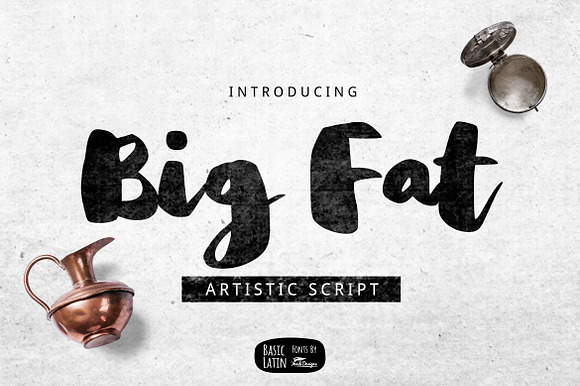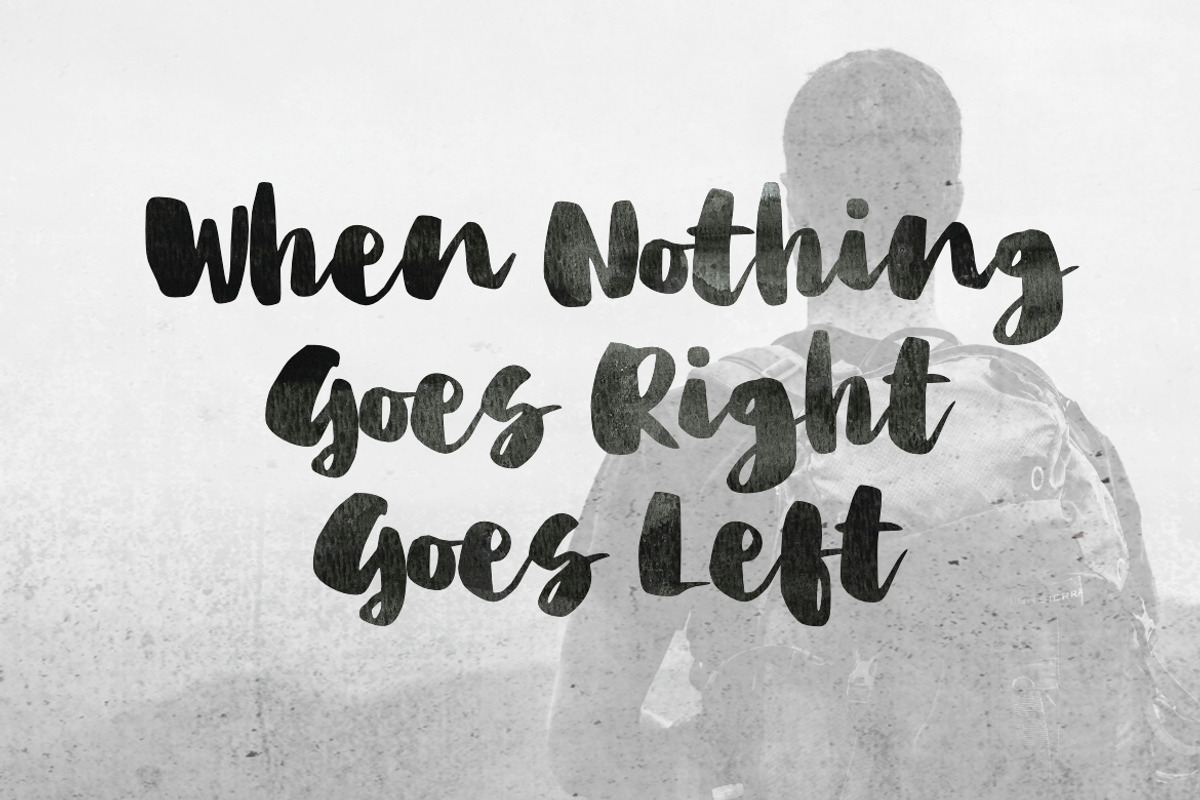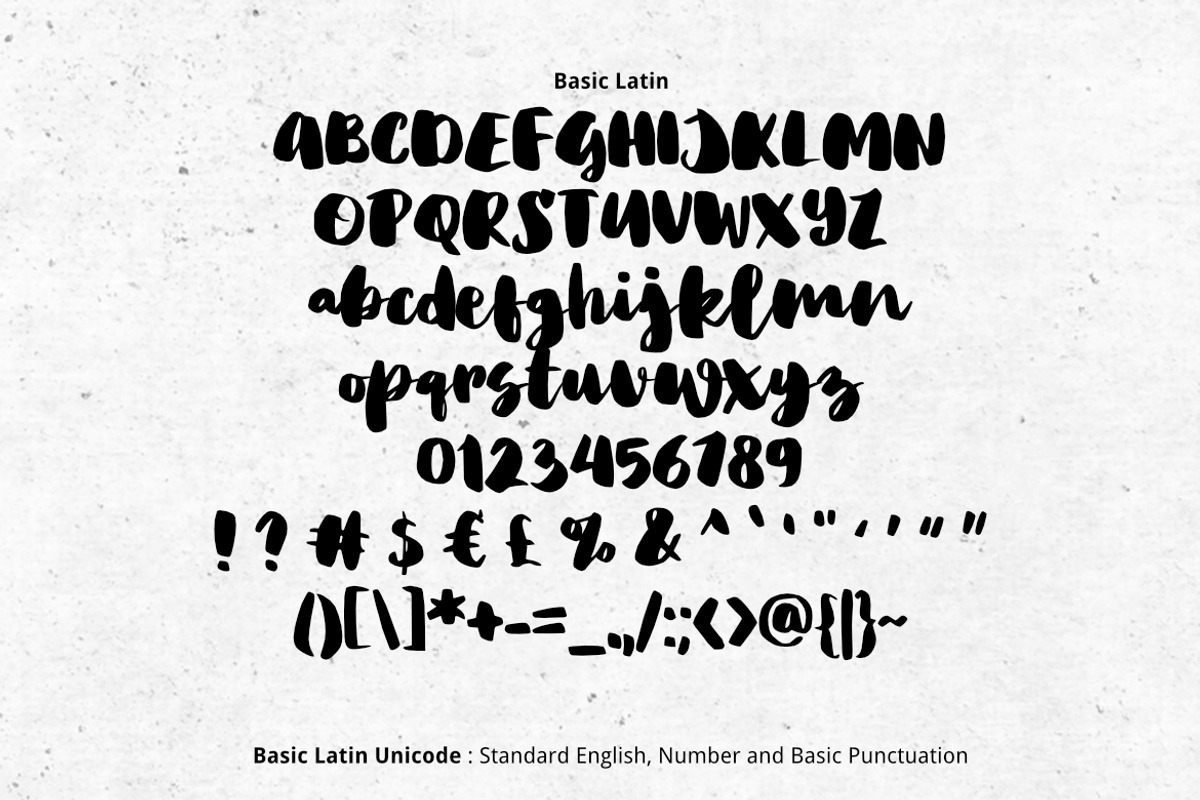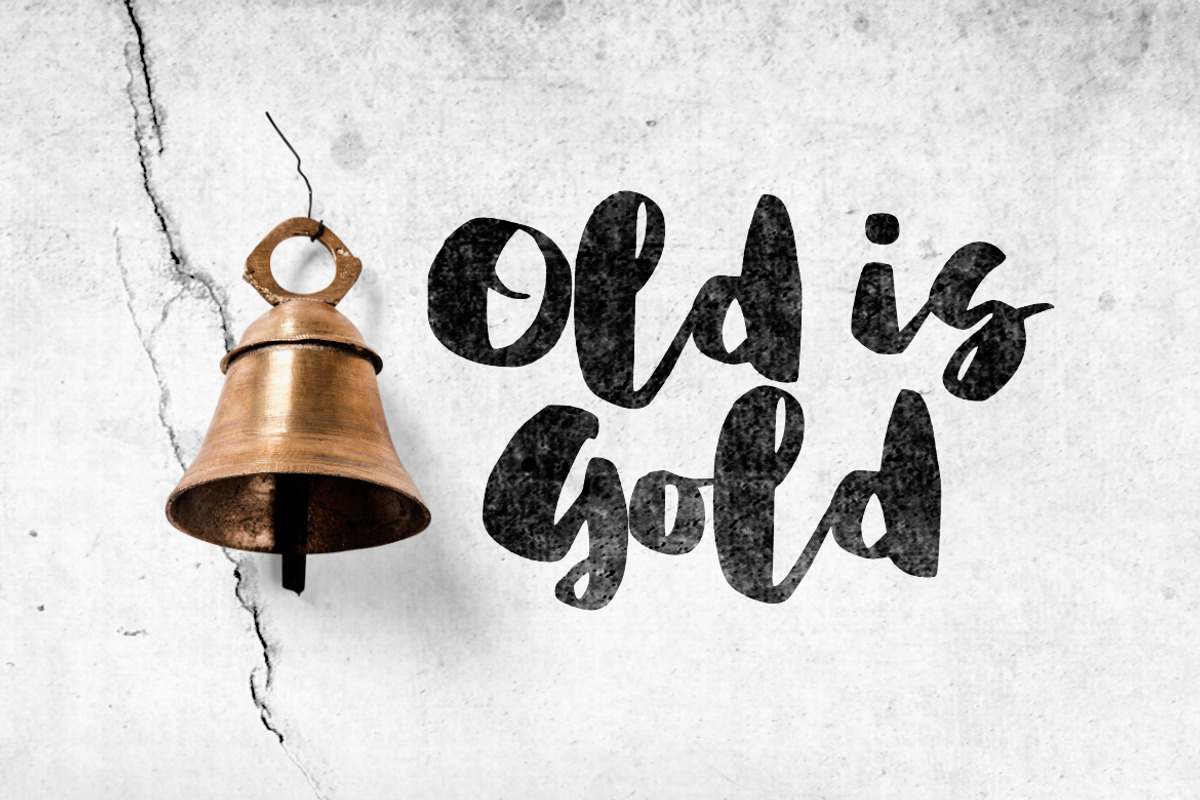
Big Fat Brush Font
Big Fat artistic bold brush multipurpose script font , suitable for many project children book, quotes, logo , heading, title etc.
Big Fat Brush Font by YandiDesigns fits naturally into Branding, posters, packaging, typography.